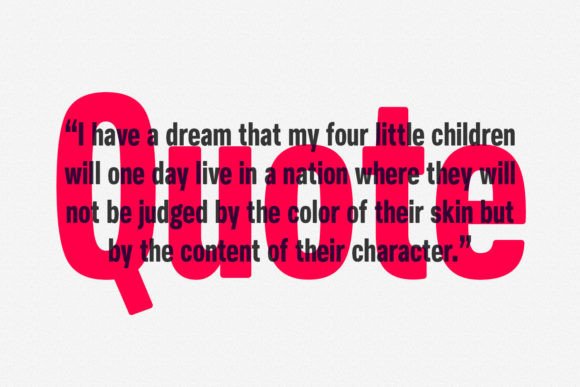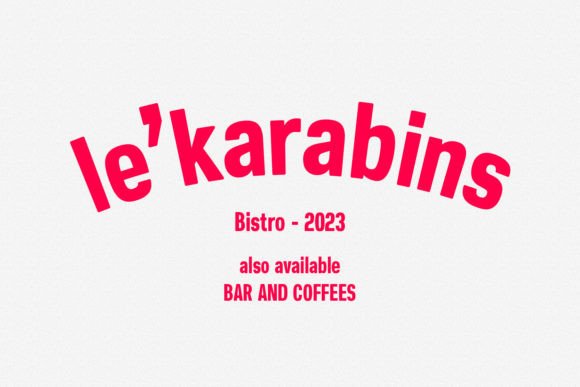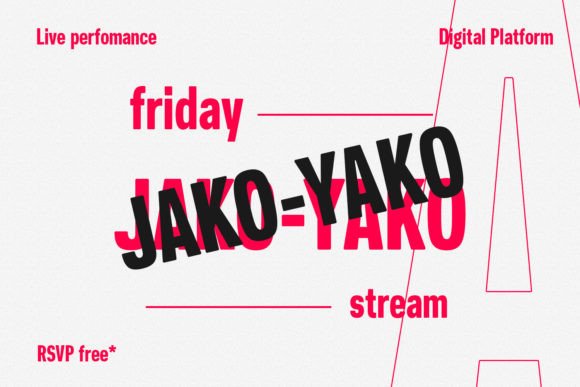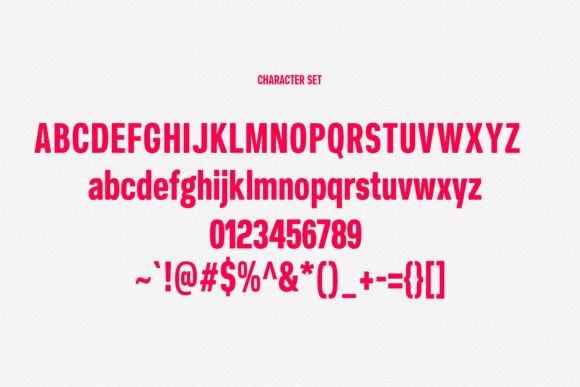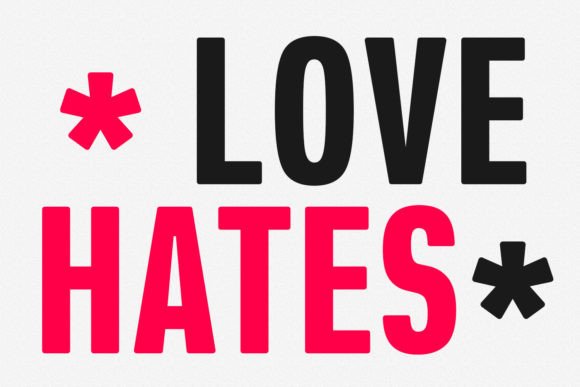
Gigenham Font: The Ultimate Retro-Inspired Typeface for Modern Designs
In the world of typography, fonts play a crucial role in conveying the tone and aesthetic of a design. For designers and crafters looking to add a touch of old-school cool to their projects, the Gigenham font is an excellent choice. This retro-inspired condensed sans serif font has gained popularity for its unique blend of vintage charm and modern appeal. In this article, we’ll dive into the features and benefits of the Gigenham font, and explore how it can elevate your designs.
What is Gigenham Font?
Gigenham is a carefully crafted font that draws inspiration from classic retro typography. Its clean lines, geometric shapes, and bold strokes evoke a sense of nostalgia, while its condensed form ensures that it remains highly legible and versatile. This sans serif font is perfect for designers who want to add a vintage touch to their modern designs, without compromising on readability.
Key Features of Gigenham Font
So, what makes Gigenham font stand out from the rest? Here are some of its key features:
- Retro-inspired design: Gigenham font boasts a unique retro aesthetic that adds a touch of old-school cool to any project.
- Condensed sans serif: Its condensed form makes it perfect for headings and titles, while its sans serif style ensures clean and simple lines.
- Geometric shapes: The font’s geometric shapes add a touch of modernity, making it suitable for a wide range of design applications.
- Bold and compact: Gigenham font’s bold strokes and compact form make it ideal for headlines, titles, and other display text.
- Legible and readable: Despite its condensed form, Gigenham font remains highly legible and readable, making it suitable for body text and other smaller sizes.
Use Cases for Gigenham Font
Gigenham font is a versatile typeface that can be used in a variety of design applications. Here are some use cases where Gigenham font shines:
- Headings and titles: Gigenham font’s bold and compact form makes it perfect for headings and titles, adding a touch of vintage charm to any design.
- Logos and branding: The font’s unique retro aesthetic makes it an excellent choice for logos and branding, helping to create a memorable and distinctive identity.
- Posters and flyers: Gigenham font’s bold strokes and geometric shapes make it ideal for posters and flyers, adding a touch of old-school cool to any design.
- Web design: The font’s legibility and readability make it suitable for web design, ensuring that your website’s content is easy to read and understand.
Tips for Using Gigenham Font
To get the most out of Gigenham font, here are some tips to keep in mind:
- Use it sparingly: Gigenham font’s bold and compact form makes it perfect for headings and titles. Use it sparingly to create visual interest and add emphasis.
- Pair it with other fonts: Gigenham font pairs well with other sans serif fonts, such as Arial or Helvetica. Experiment with different font combinations to create a unique look.
- Adjust the size and weight: Gigenham font comes in different sizes and weights. Experiment with different sizes and weights to find the perfect fit for your design.
In conclusion, Gigenham font is a unique and versatile typeface that adds a touch of old-school cool to any design. Its retro-inspired design, condensed sans serif form, and geometric shapes make it perfect for modern designs with a vintage vibe. With its bold and compact form, simple and legible style, and wide range of use cases, Gigenham font is an excellent choice for designers and crafters looking to elevate their designs.
Whether you’re designing a logo, creating a poster, or building a website, Gigenham font is sure to make a statement. So why not give it a try and see how it can transform your designs?